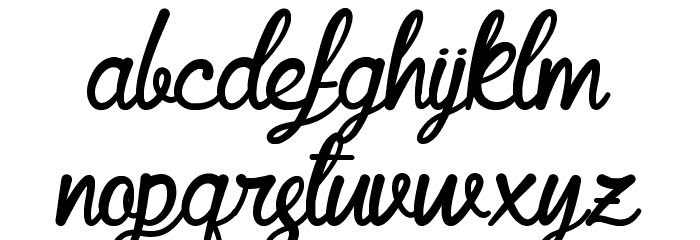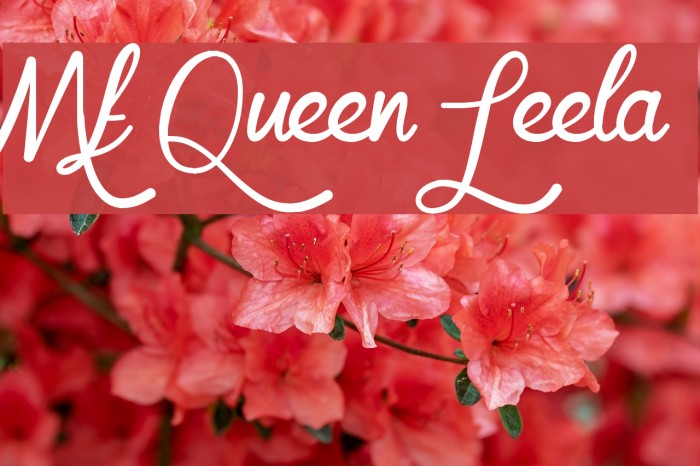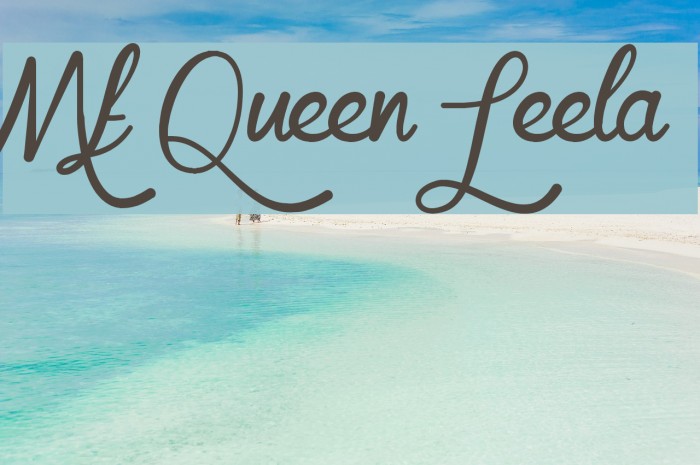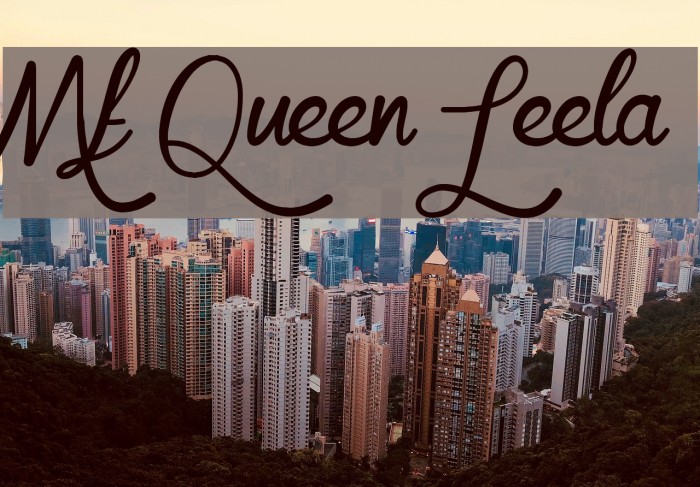
Mf Queen Leela Font
This font exhibits a playful and dynamic script style, characterized by its fluid and interconnected letterforms. The uppercase letters are elegantly looped, creating a sense of movement and rhythm. The lowercase letters maintain a consistent flow, with some letters featuring distinctive curls and swashes. The numerals are uniquely styled, complementing the overall script aesthetic. Special characters are designed with flair, adding to the font's decorative appeal. This font's lively and expressive nature makes it suitable for creative and artistic projects.
A playful and dynamic script font with fluid, interconnected letterforms.
- Proposed Projects: Ideal for invitations, greeting cards, branding, and artistic designs.
- Use Case: Logos, Invitations, Artistic projects